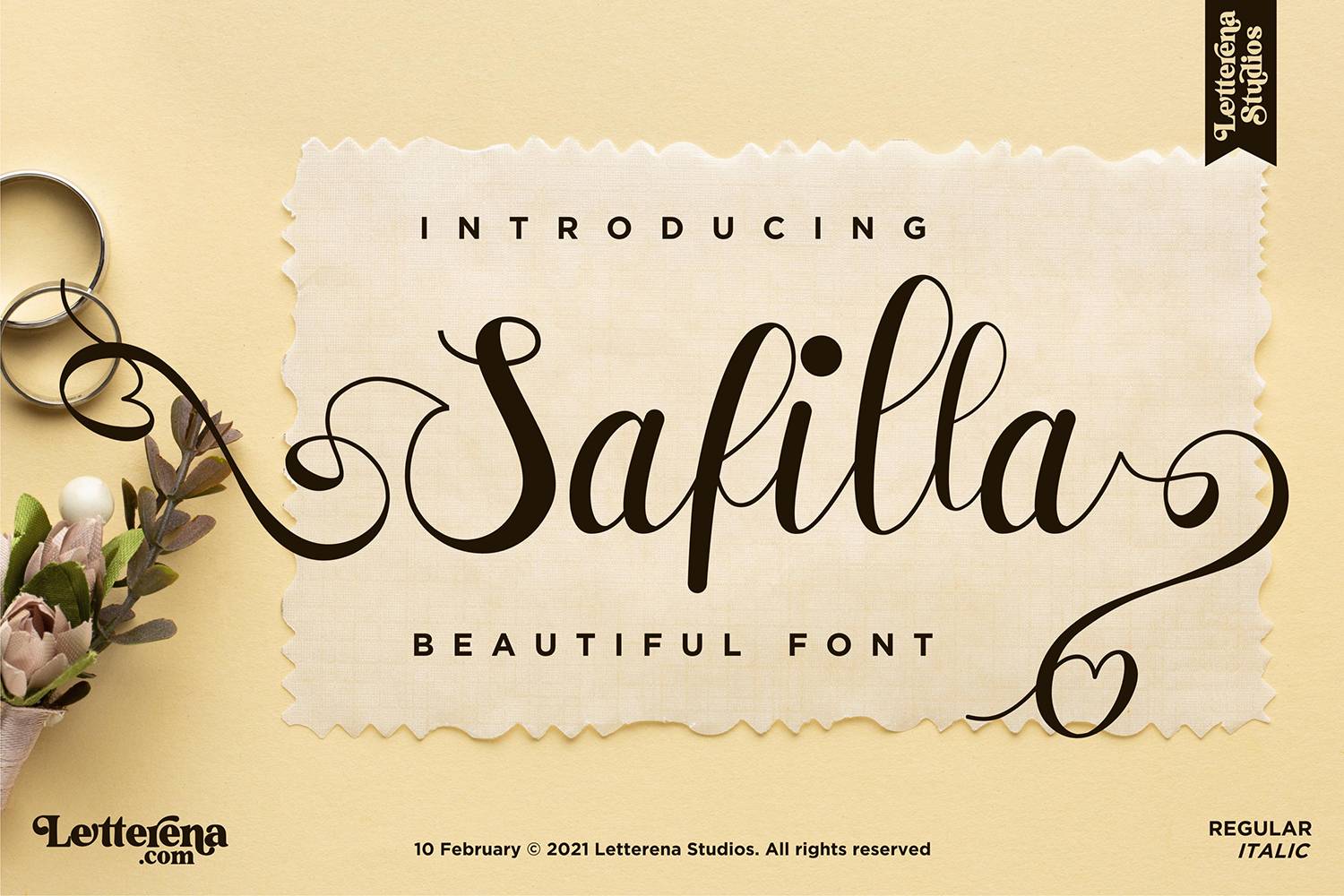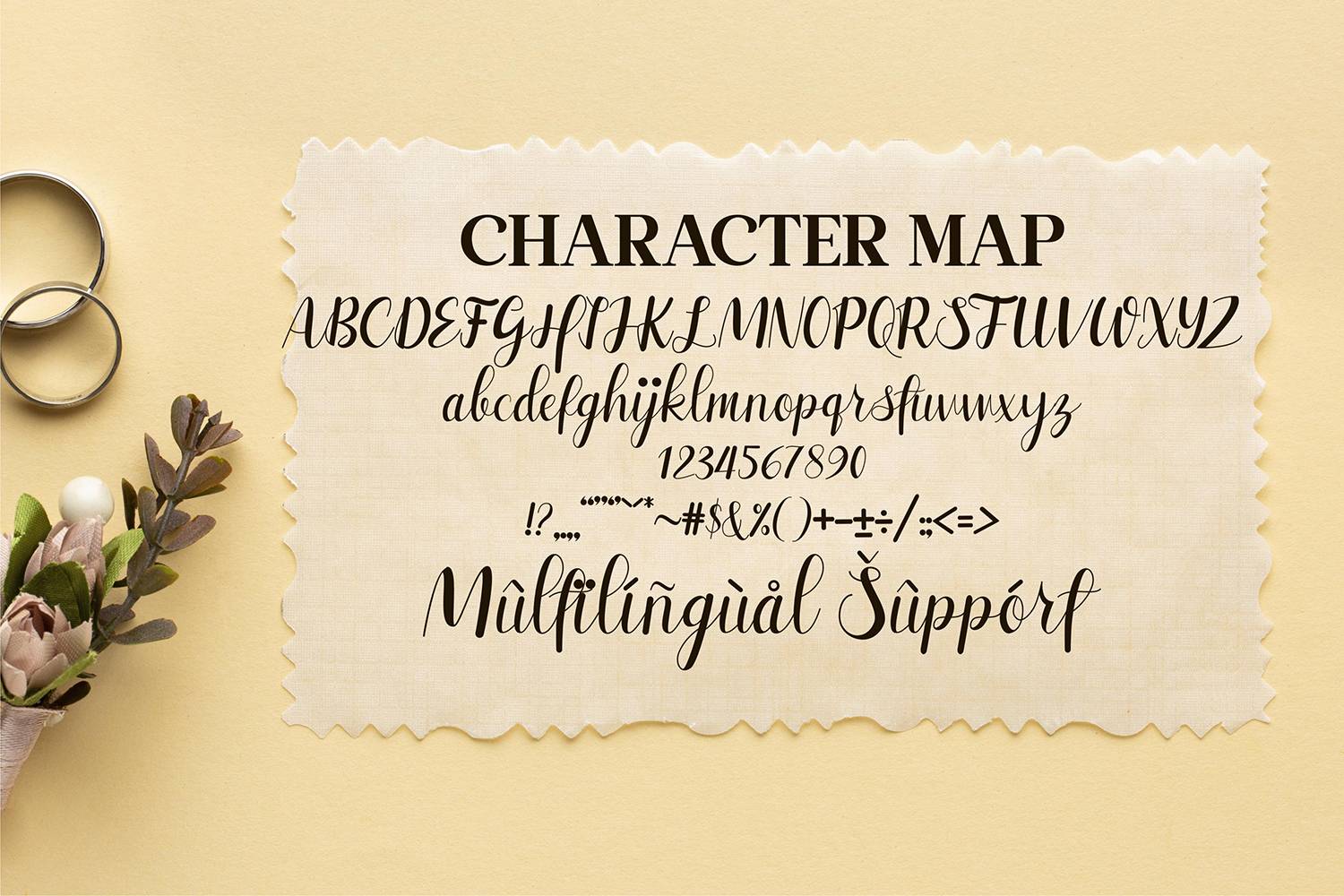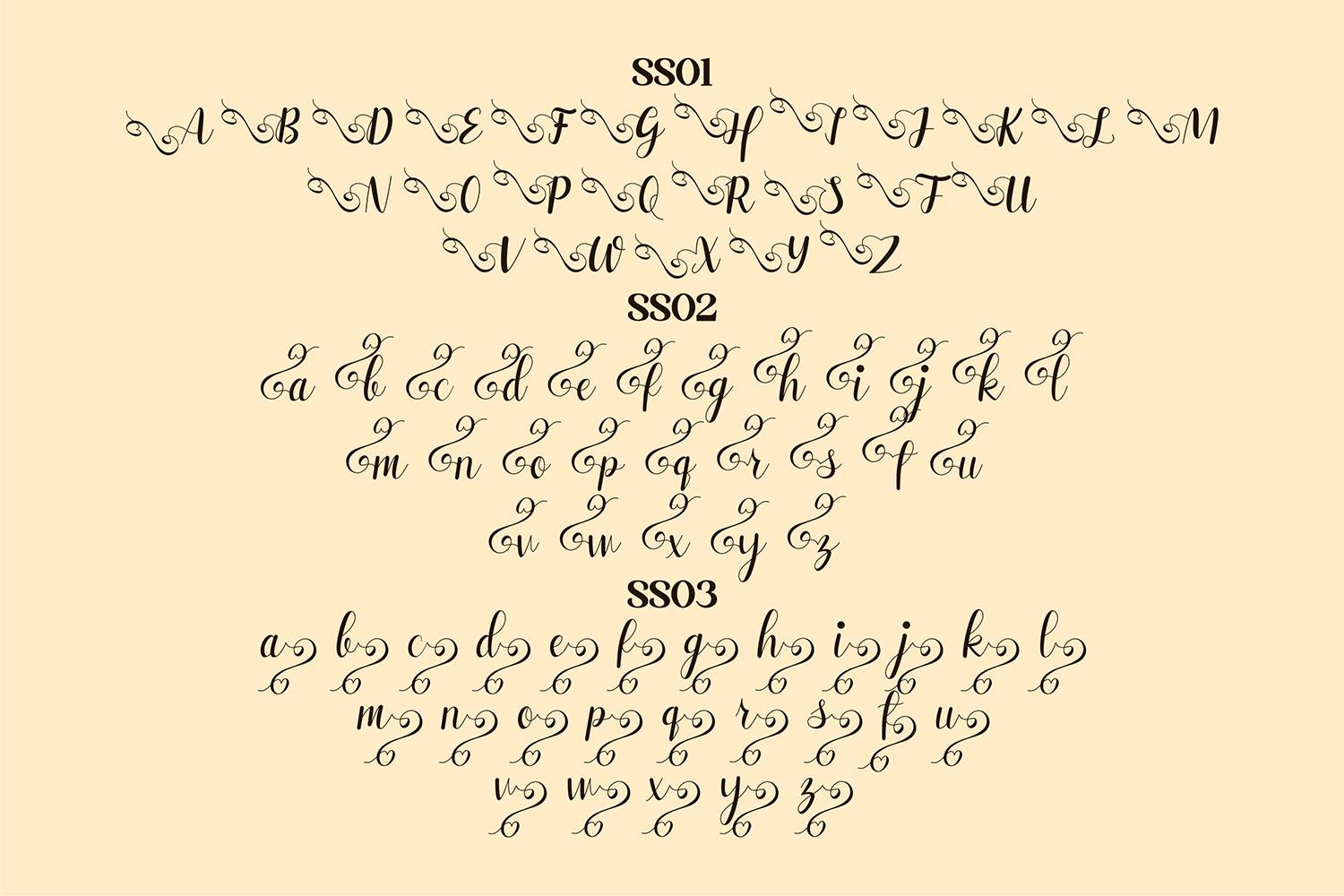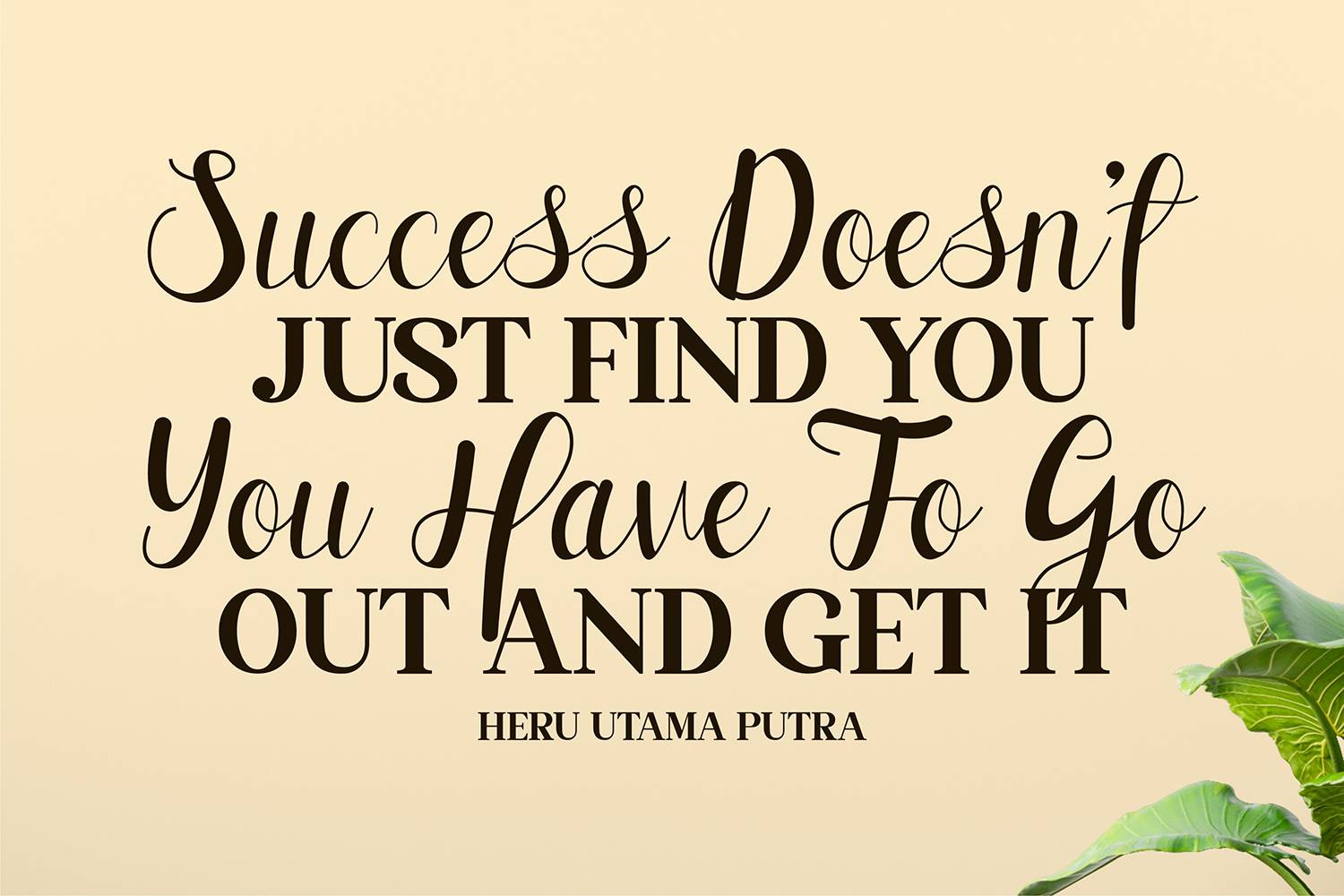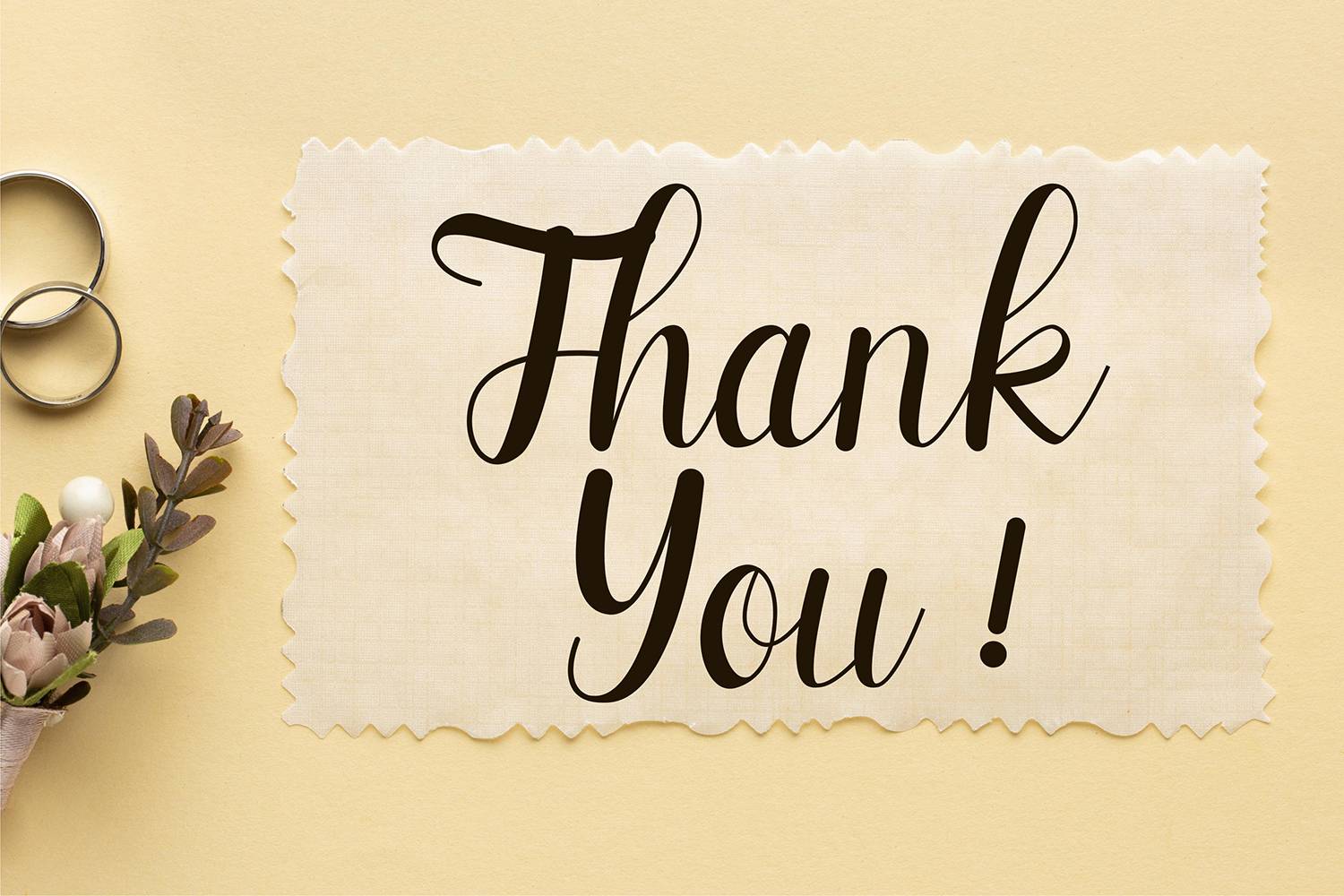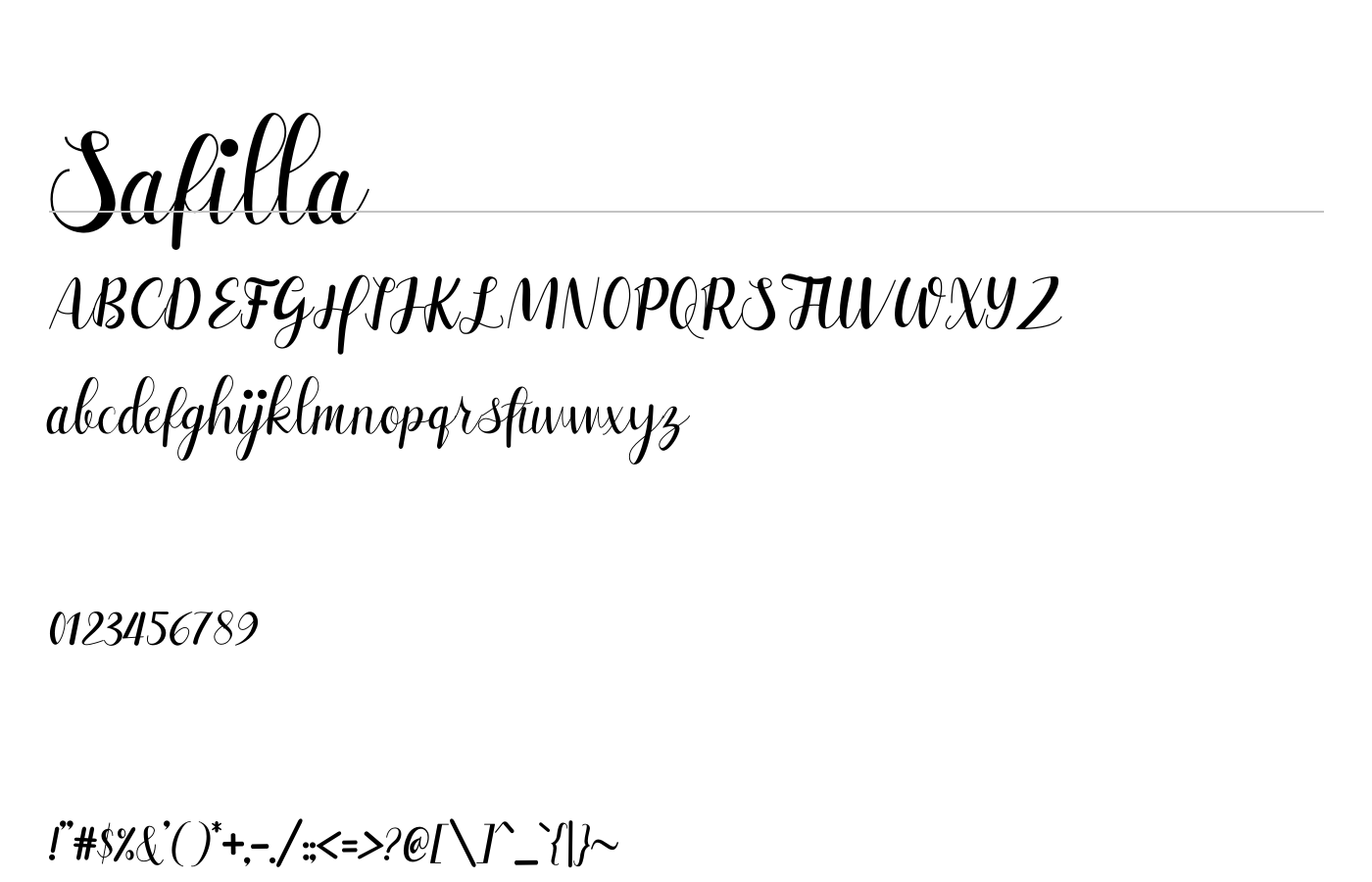
Safilla is an elegant script font with a delicate, handwritten feel characterized by fluid strokes and graceful curves, making it perfect for romantic or artistic designs. Its slim, slightly tall letterforms with moderate contrast lend a refined yet approachable personality suitable for invitations, branding, and stylish headlines. This font works well where a touch of sophistication and charm is needed without overwhelming readability.
Safilla Font
About Safilla Font
| Font family | Safilla Font |